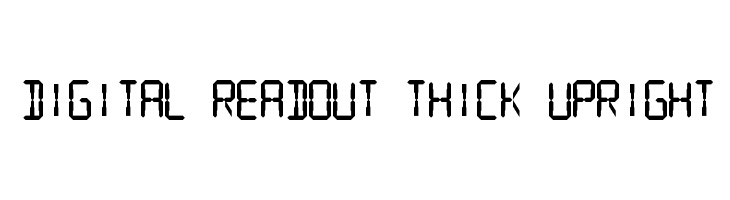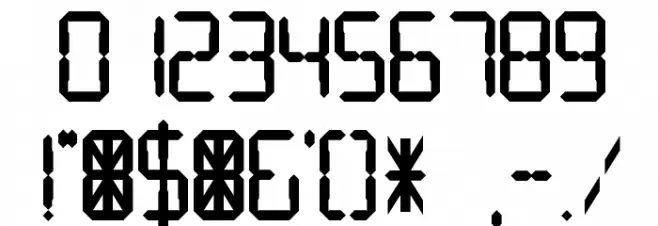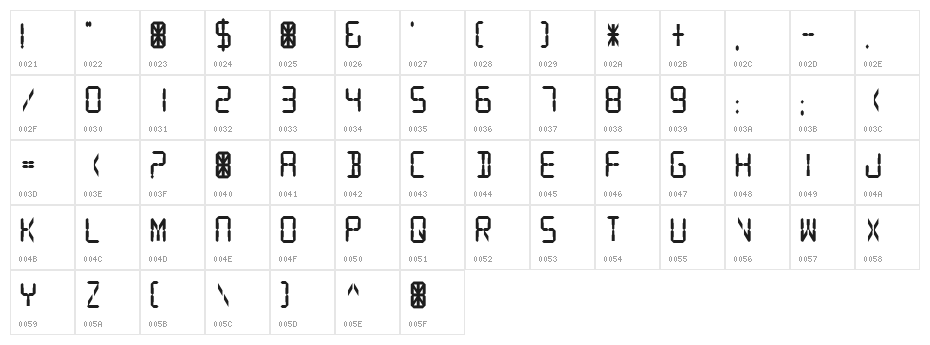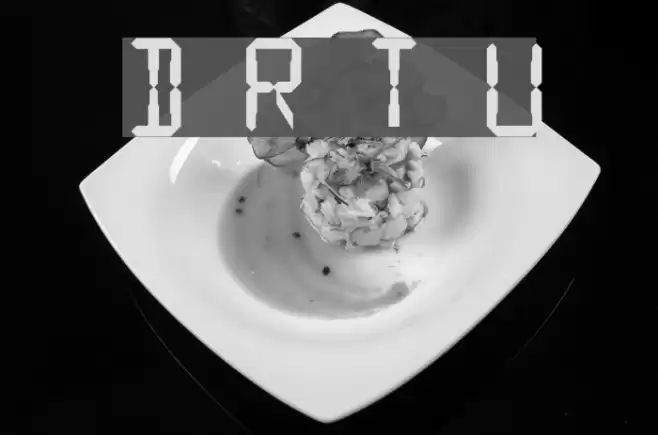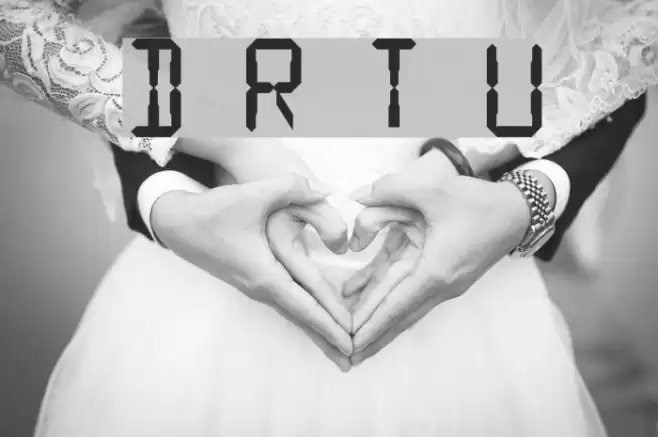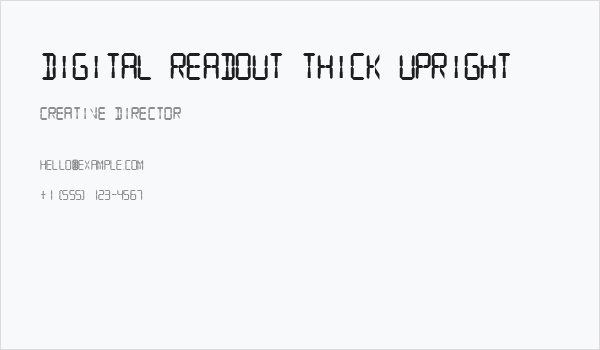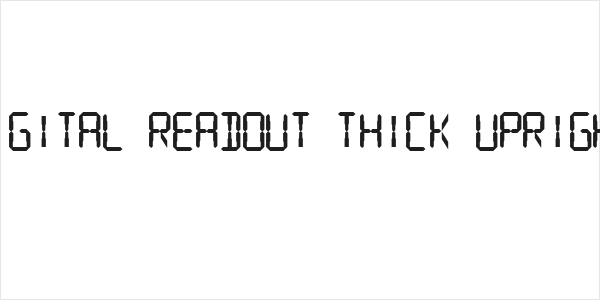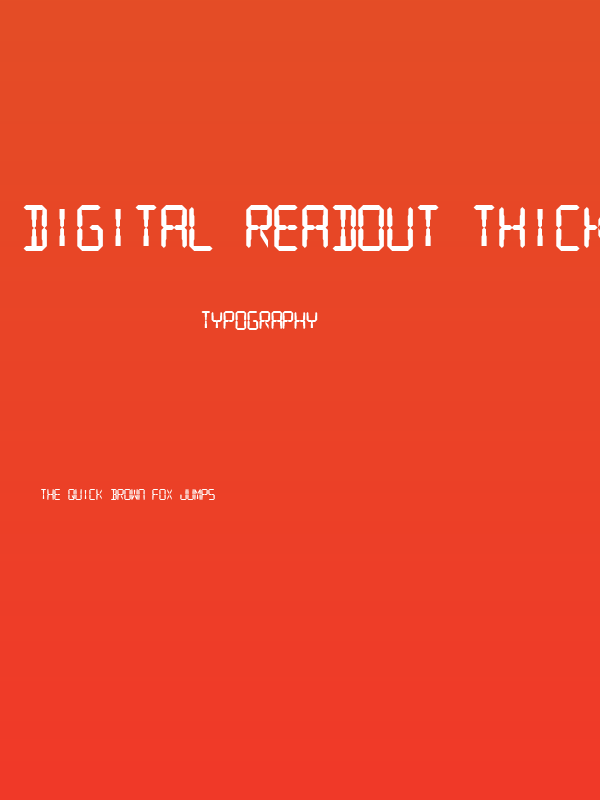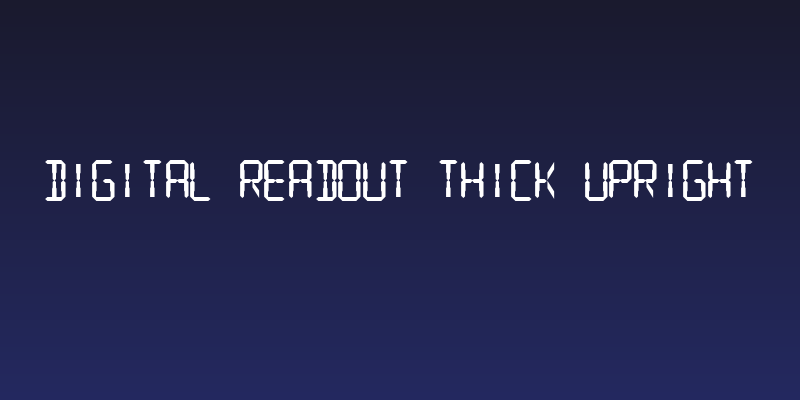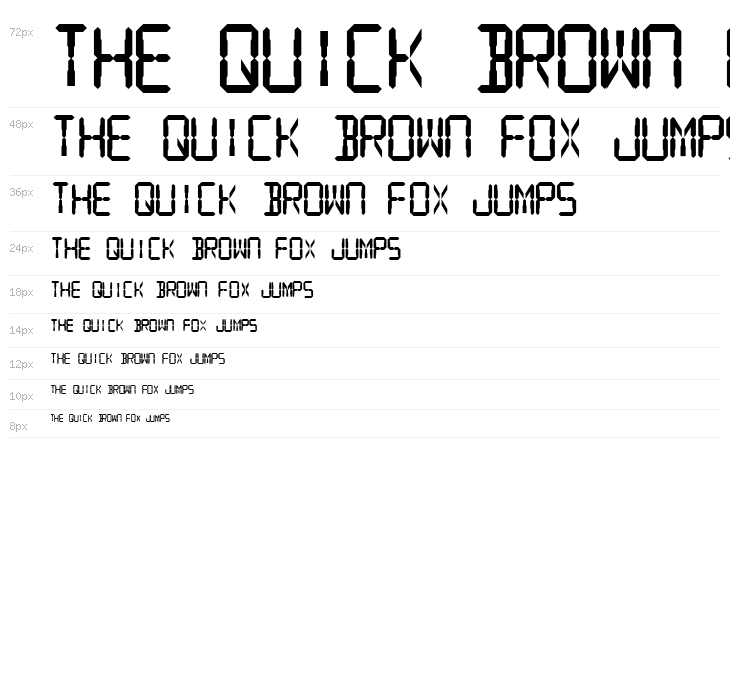
Digital Readout Thick Upright Font
Digital Readout Thick Upright Description
This font features a digital, geometric style reminiscent of old-school digital readouts and LED displays. Each character is constructed with a series of straight lines and angles, creating a blocky, mechanical appearance. The uppercase and lowercase letters maintain a consistent width, contributing to a uniform look. The numbers and special characters follow the same design principles, ensuring cohesion across all glyphs. The font's thick strokes and angular forms give it a bold presence, making it ideal for attention-grabbing designs. Its retro-futuristic aesthetic is perfect for projects that require a technological or vintage digital feel.
| Overall Style | Retro, Futuristic |
| Proposed Projects | Ideal for digital-themed projects, retro designs, technology branding, and sci-fi posters. |